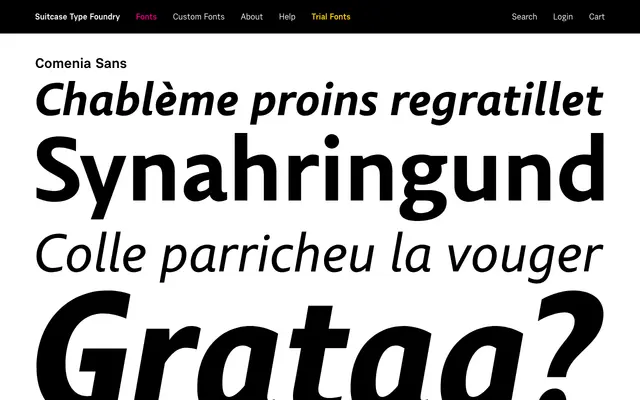
A humanist sans-serif from Suitcase Type Foundry, named in reference to the Czech educator Jan Amos Komenský and oriented towards text and educational settings.
Comenia Sans draws its name from Jan Amos Komenský, the influential Czech pedagogue, suggesting a design intent rooted in legibility and accessibility. The family is positioned as a text-friendly humanist sans, suited to educational publishing and extended reading. Suitcase Type Foundry is a Prague-based studio with a strong record in Central European type design.
The name and foundry context suggest a humanist sans-serif design, likely intended for text and educational use given the 'Comenia' reference to the Czech educator Jan Amos Komenský.